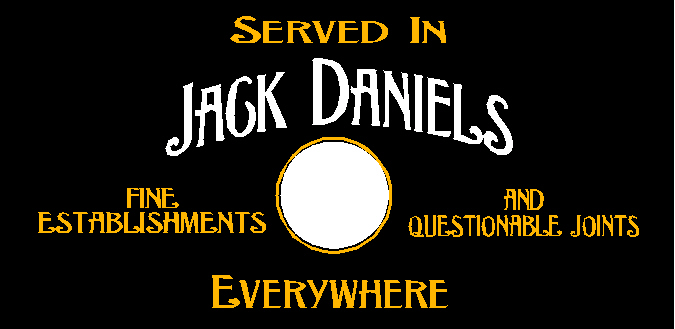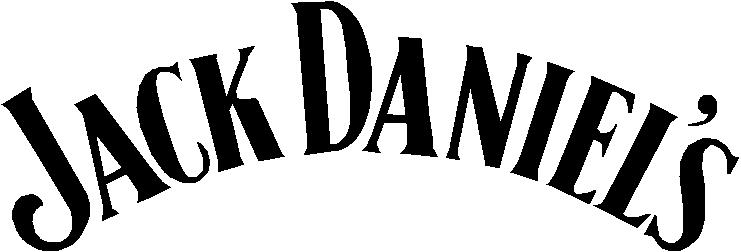
jack daniels font
Has anyone seen a font similar to the jack daniels logo. I know it is probably a designed logo, but I'm hoping to find something kind of like it.
We are doing some extra lettering on it, so an exact match is not really necessary.
Letterhead fonts LHF Grant Antique which I believe is a free font (SEE BOTTOM OF PAGE FOR LINK) It is not a match but it might be close enough.